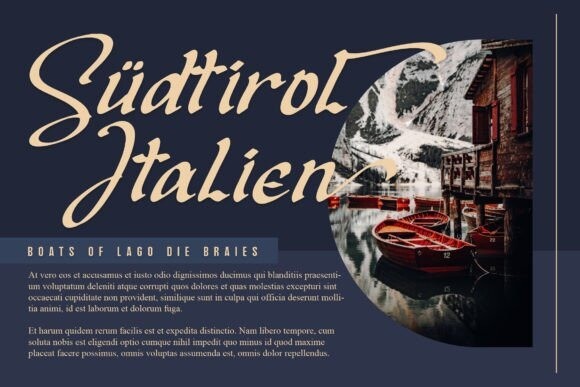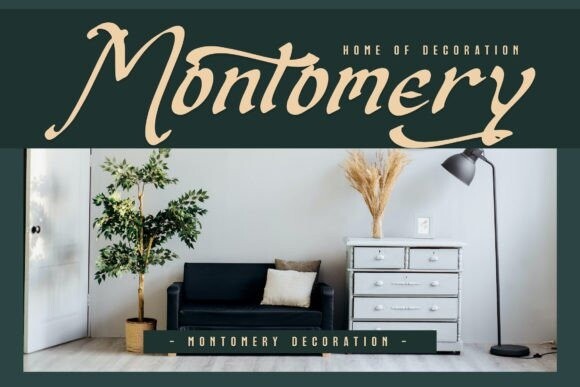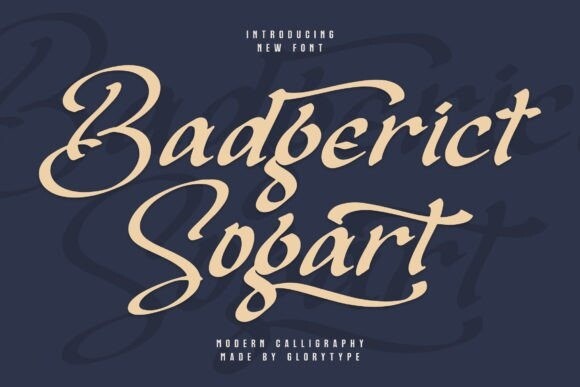
Badgerict Sogart Modern Calligraphy Font
Badgerict Sogart – Modern Calligraphy Font is suitable for any projects such as logos, branding projects, homeware designs, product packaging, mugs, quotes, posters, shopping bags, t-shirts, book covers, name cards, invitation cards, greeting cards, label, photography, watermark, special events, and all your other lovely projects that need a beautiful script taste.